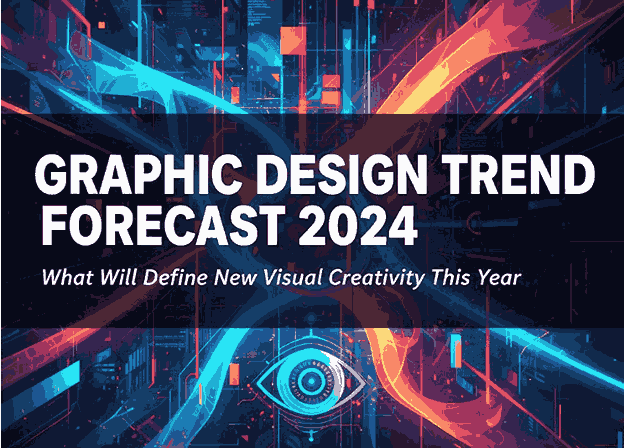
1. Introduction
As we step into 2024, the world of graphic design continues to evolve at lightning speed. Technology, culture, and social change all influence how we communicate visually. The Graphic Design Trend Forecast for 2024 reveals a fascinating mix of nostalgia and innovation—where timeless design principles meet futuristic tools and aesthetics.
Whether you’re a brand designer, creative director, or font creator, understanding these upcoming Graphic Design Trend Forecast helps you stay relevant and produce work that resonates with your audience.
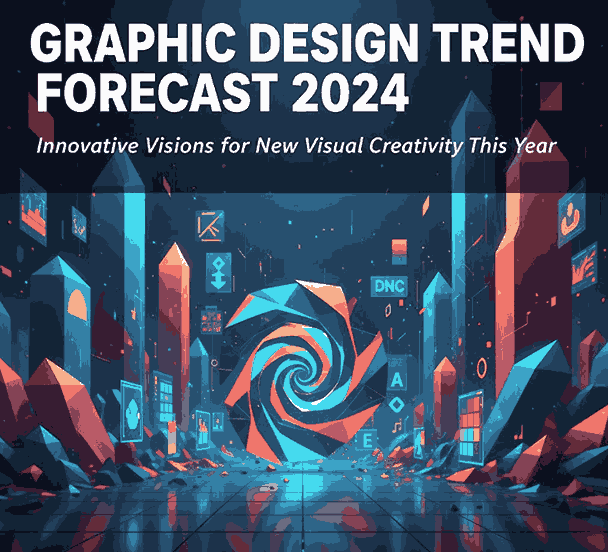
2. Why Graphic Design Trend Forecast Matter
Graphic design trends are not just fleeting visual fads; they represent how human behavior and technology merge to shape visual culture. For professionals, following these trends means:
- Staying aligned with audience expectations
- Keeping designs visually fresh and competitive
- Improving brand recognition through modern aesthetics
3. The Biggest Graphic Design Trend Forecast of 2024
Here’s a look at the dominant creative directions predicted to shape the industry this year.
3.1 Minimalism with a Modern Twist
Minimalism isn’t going anywhere—but 2024’s version comes with personality. Expect to see clean layouts with subtle gradients, dynamic asymmetry, and bold negative space. The goal? To create elegant simplicity that still feels expressive.
Designers are moving toward “warm minimalism”—using soft color palettes, human-centered imagery, and balanced typography to maintain sophistication without feeling sterile.
3.2 Retro Revival and Nostalgia
The return of the Y2K and ’80s–’90s retro aesthetics continues to dominate. From chrome effects and holographic textures to grainy filters and hand-drawn fonts, nostalgia remains a strong emotional trigger.
This blend of old and new creates familiarity while remaining visually exciting—perfect for social media campaigns, music posters, and brand visuals.
3.3 Bold Typography and Experimental Fonts
Typography takes center stage in 2024. Designers are using custom typefaces, layered textures, and variable fonts to express brand personality.
If you want to incorporate trend-aligned typography, explore these examples:
- Classicly Font — a timeless serif that fits minimalist and editorial aesthetics.
- Jaycee Looks Font — perfect for vibrant, modern-retro compositions.
- Rellative Font — ideal for bold, headline-driven layouts.
- Vineland Font — stylish and sophisticated, great for brand logos or packaging.
These fonts capture the essence of 2024’s design movement: a balance between clarity, expression, and innovation.
3.4 3D and Motion Design Integration
Motion graphics and 3D design continue to merge into mainstream brand identity. Animated typography, immersive visuals, and subtle motion in UI design are becoming essential.
With the rise of AR/VR, designers are exploring interactive storytelling, where static visuals come to life. Tools like Blender and After Effects are now standard for many designers who want to add dimension to their work.
3.5 Sustainable and Eco-Friendly Visuals
As sustainability becomes central to global consciousness, design is reflecting this shift. 2024 brings more earth-inspired tones, natural textures, and organic shapes.
Brands are emphasizing authenticity and ethical design—moving away from over-production toward timeless, minimalist visual systems. Fonts that feel handcrafted or organic fit perfectly into this movement.
3.6 AI-Driven Design Tools
Artificial intelligence has revolutionized how designers brainstorm, create mockups, and explore new visual ideas. AI tools like Adobe Firefly, Midjourney, and ChatGPT are not replacing creativity—they’re amplifying it.
Designers who understand how to collaborate with AI can increase productivity while maintaining artistic integrity. Expect AI-generated art, smart layouts, and predictive color harmonies to play major roles in 2024’s workflows.
4. How Can Adapt to These Graphic Design Trend Forecast
To stay ahead in 2024:
- Stay curious — follow design blogs, attend webinars, and observe top agencies.
- Experiment often — create mockups using the latest design software or new font combinations.
- Refine your typography — test modern fonts and variable weights for flexibility.
- Collaborate with AI tools — use them for idea generation, but always apply your human creativity.
- Build a timeless portfolio — integrate trendy design ideas while preserving your personal style.
By balancing trends with originality, you’ll maintain both relevance and authenticity.
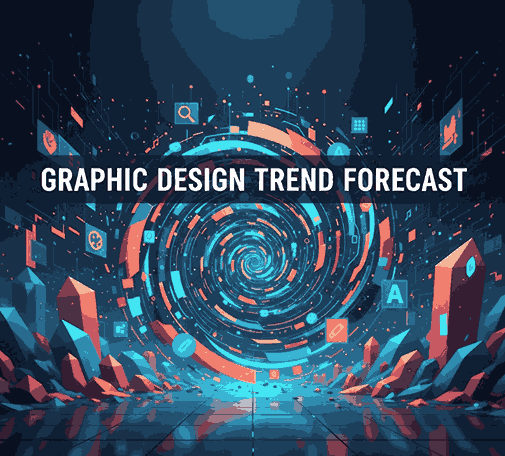
5. Recommended Fonts to Match 2024’s Visual Style
Typography is a major driver of 2024’s aesthetic direction. Here are curated fonts from your collection that complement this year’s design mood:
- Classicly Font – clean and classy, ideal for minimalist branding.
- Jaycee Looks Font – bold and futuristic, great for trend-forward logos.
- Rellative Font – contemporary yet timeless for editorial projects.
- Vineland Font – elegant curves and humanist design perfect for creative campaigns.
These typefaces not only align with the graphic design trend forecast 2024 but also demonstrate the craftsmanship that defines CalligraphyFonts.net.
6. Final Thoughts Graphic Design Trend Forecast
The Graphic Design Trend Forecast for 2024 paints a picture of creativity that merges technology, emotion, and timeless beauty. From AI-powered design tools to nostalgic fonts, this year encourages experimentation and authenticity.
For font creators and graphic designers alike, embracing these shifts means staying not just current—but visionary.
Explore these trends, try new fonts, and let your work inspire the next generation of design innovation.